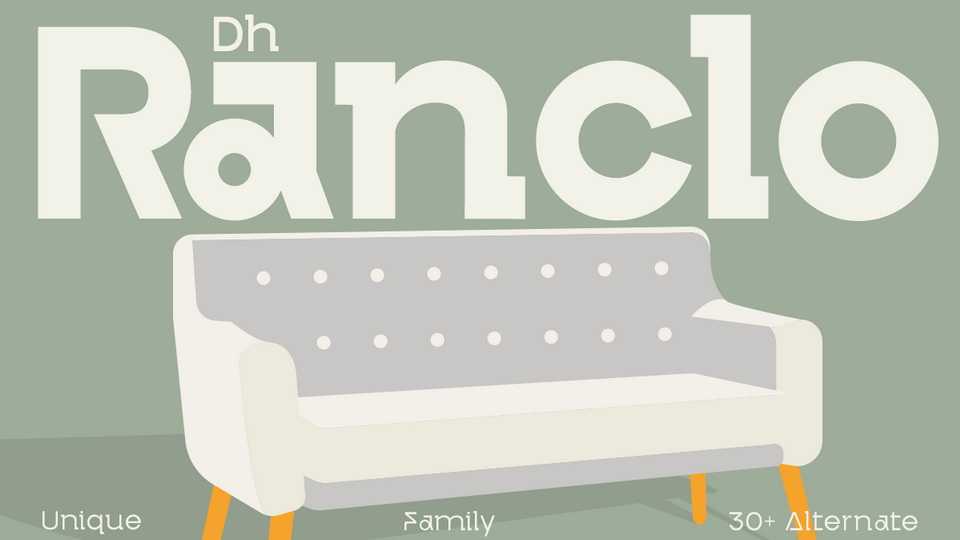
Download Dh Ranclo font, a modern display typeface designed for high-end branding and professional design projects, with its clean, geometric letterforms and refined aesthetic.